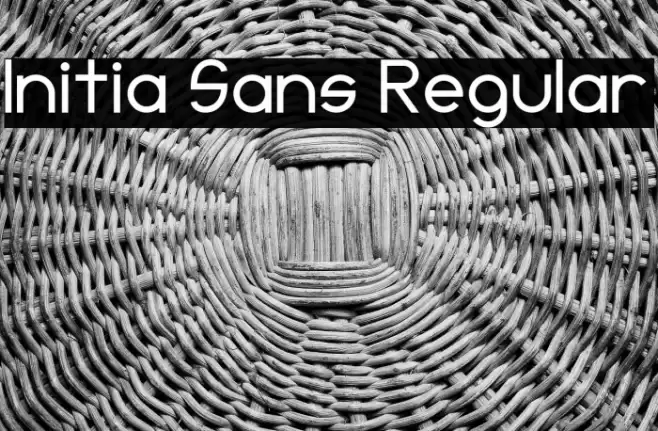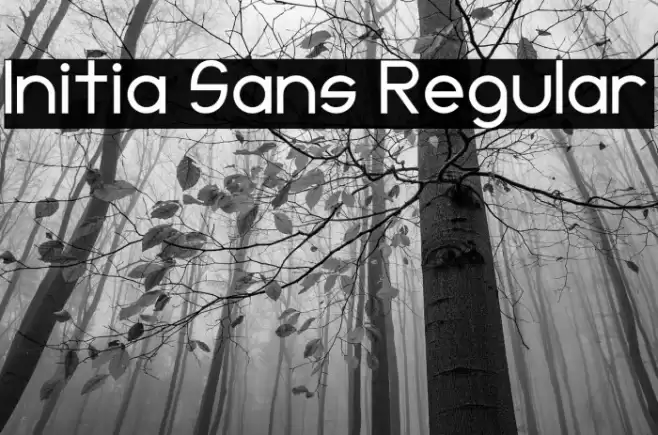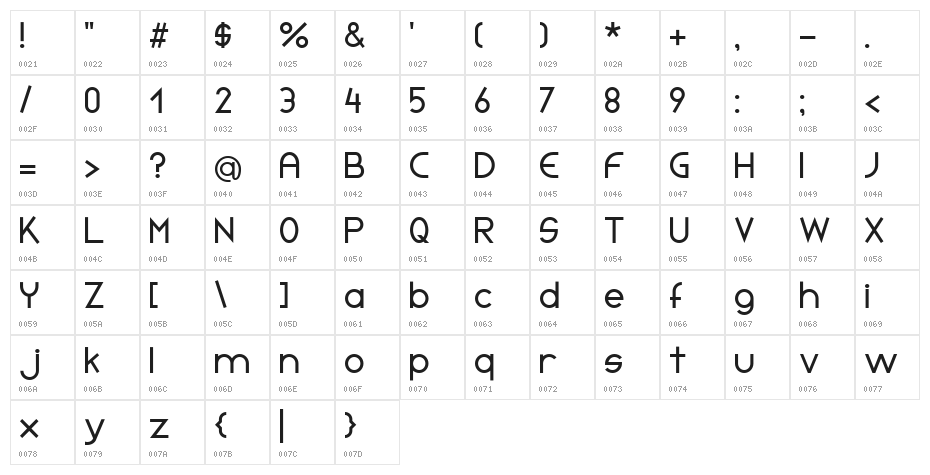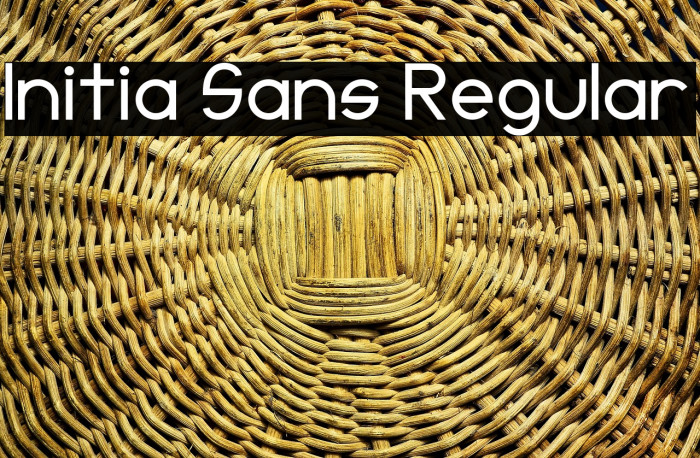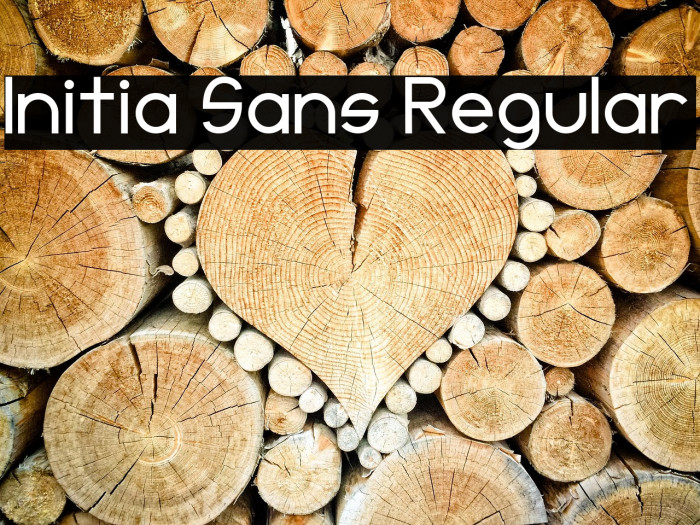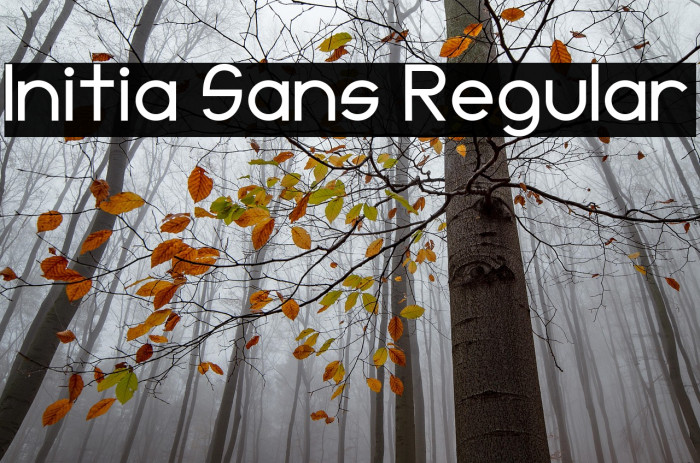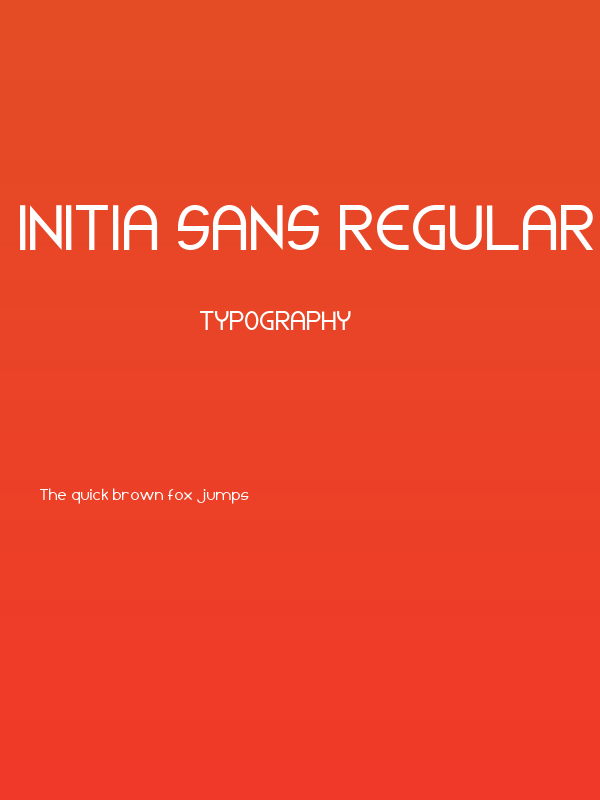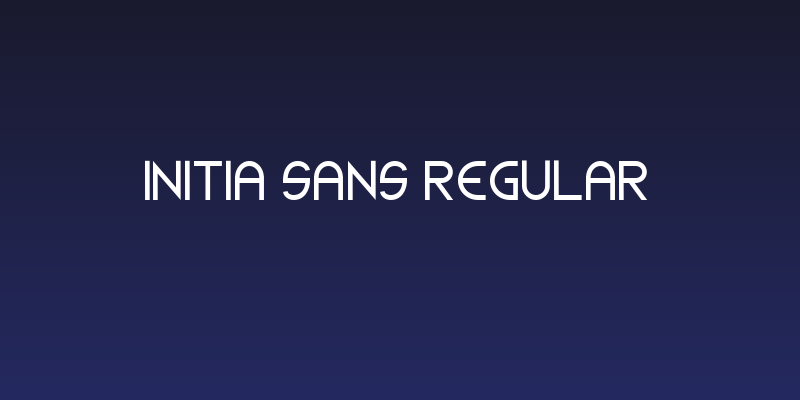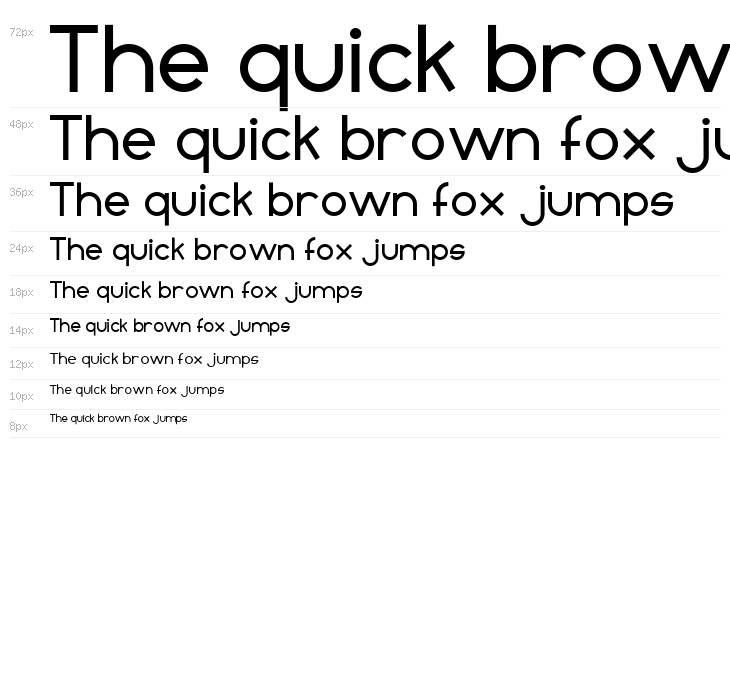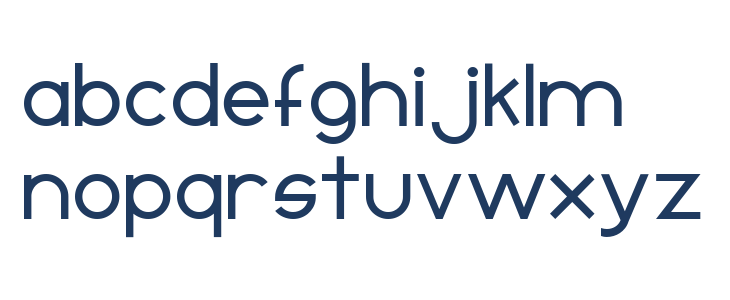
Initia Sans Regular Font
Initia Sans Regular Description
This font features a clean and modern sans-serif style with geometric influences. The characters are well-balanced, with a uniform stroke width that gives it a sleek and contemporary appearance. The uppercase letters are bold and assertive, while the lowercase letters maintain a friendly and approachable feel. The numerals are clear and easy to read, making them suitable for various applications. Special characters are designed with the same geometric precision, ensuring consistency throughout the font. This typeface is versatile, suitable for both digital and print media.
A modern, geometric sans-serif font with uniform stroke width from Regular fonts.